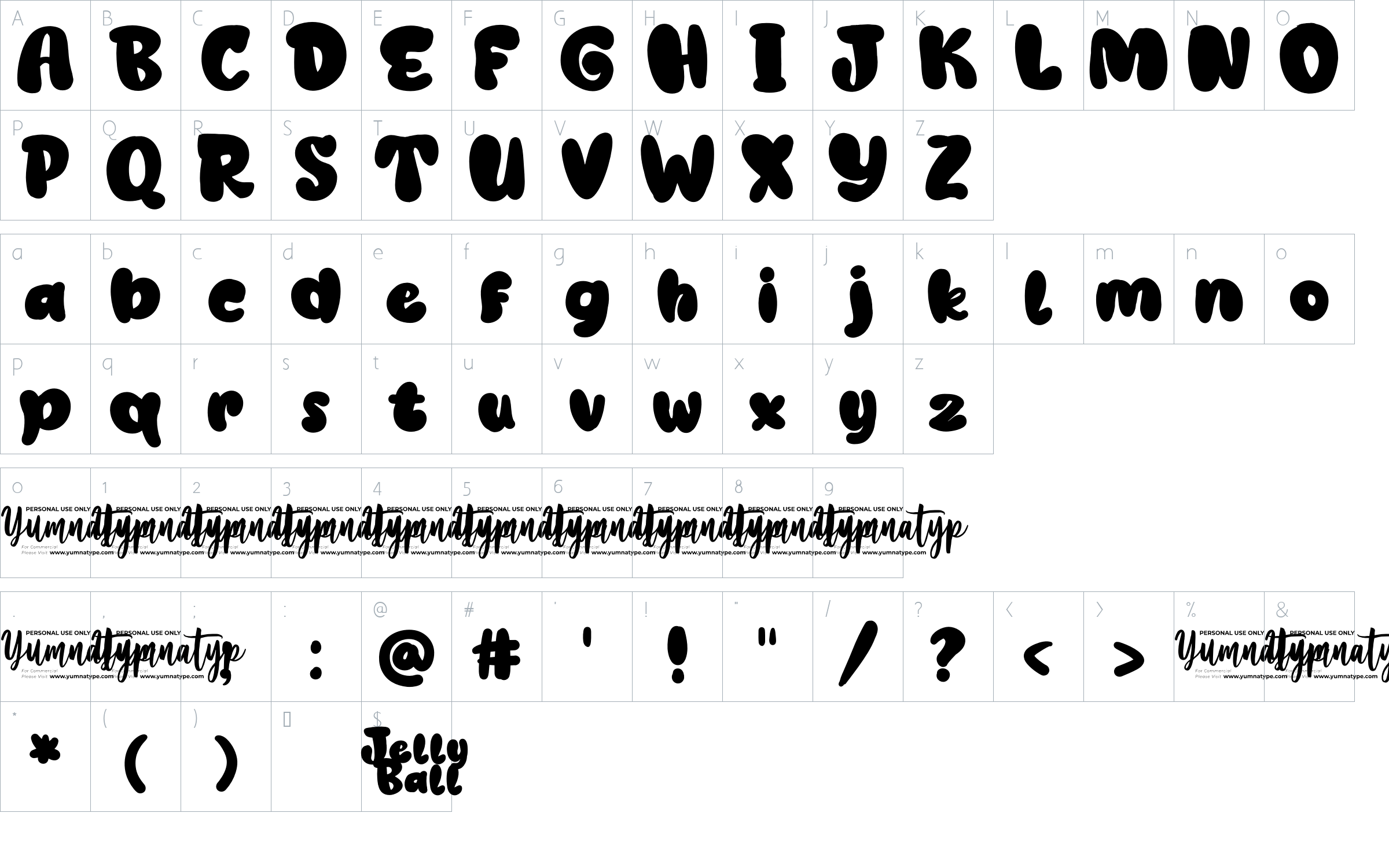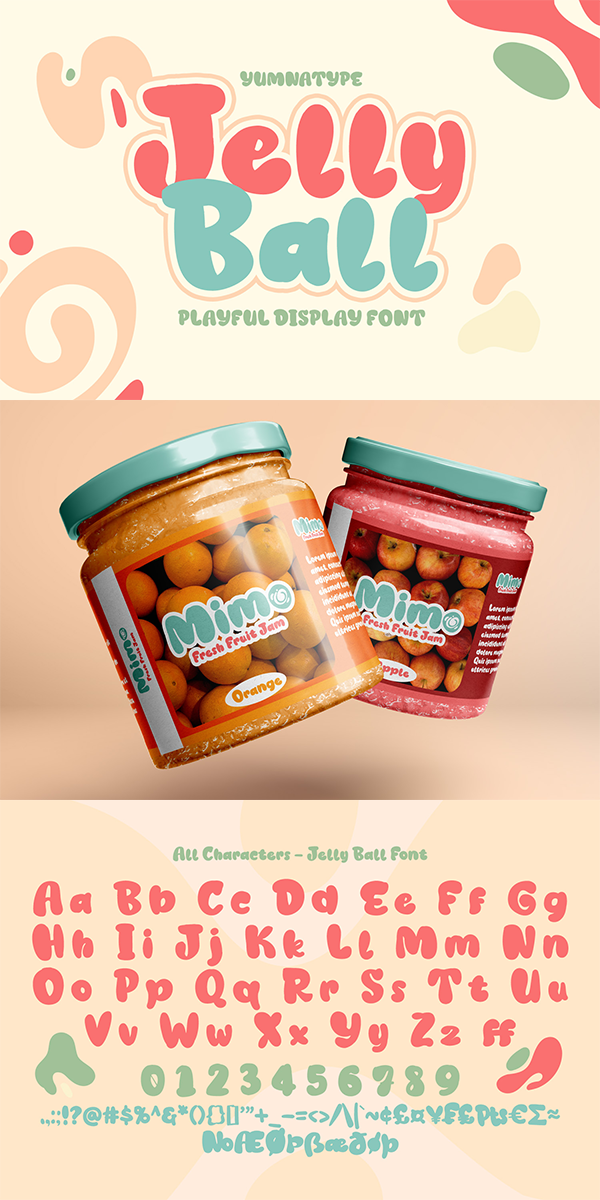
Jelly Ball Font
About Jelly Ball
Jelly Ball is a display font in round shapes on the letters’ edges to produce different effects on different applications. Generally, such a display font shows amazing, fresh, modern expressions to highlight important messages, to attract readers’ attention, and to beautify the display as well. The letters’ forms and proportions are relatively consistent enough to be legible. An extra bonus given is the clipart. You can also enjoy the available features here.
Jelly Ball fits best for various design projects, such as brandings, posters, banners, headings, magazine covers, quotes, invitations, name cards, printed products, merchandise, social media, etc. Find out more ways to use this font by taking a look at the font preview.